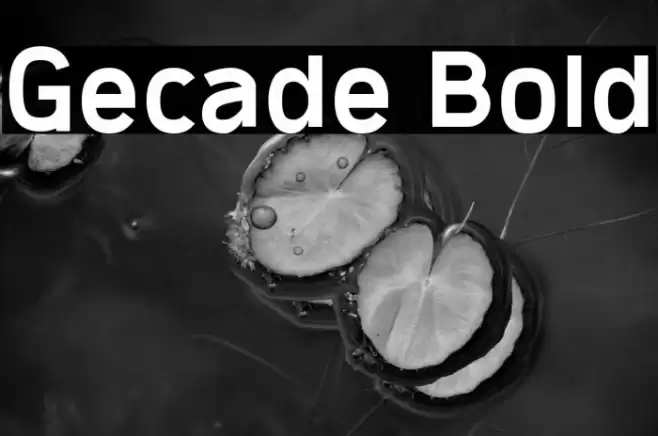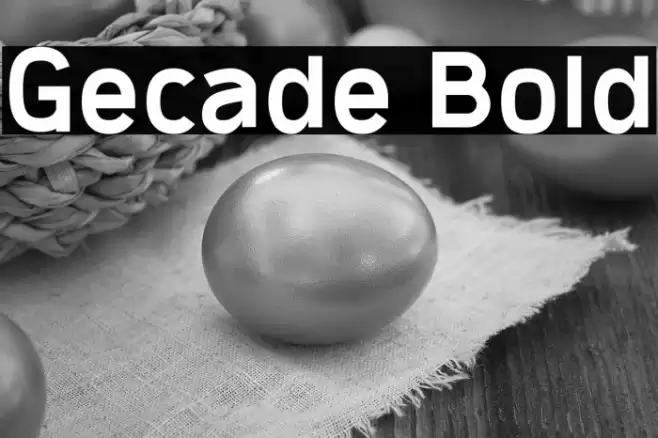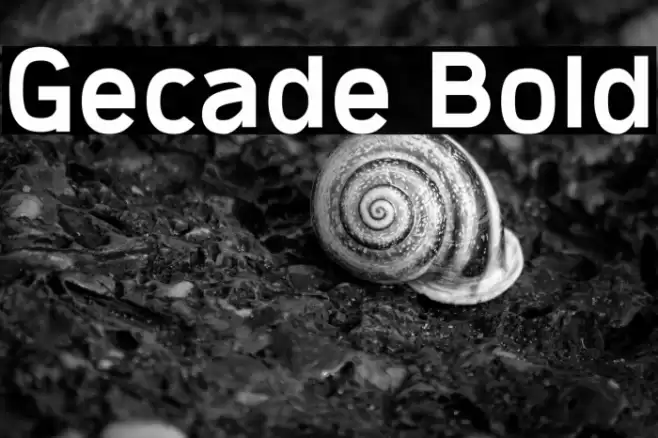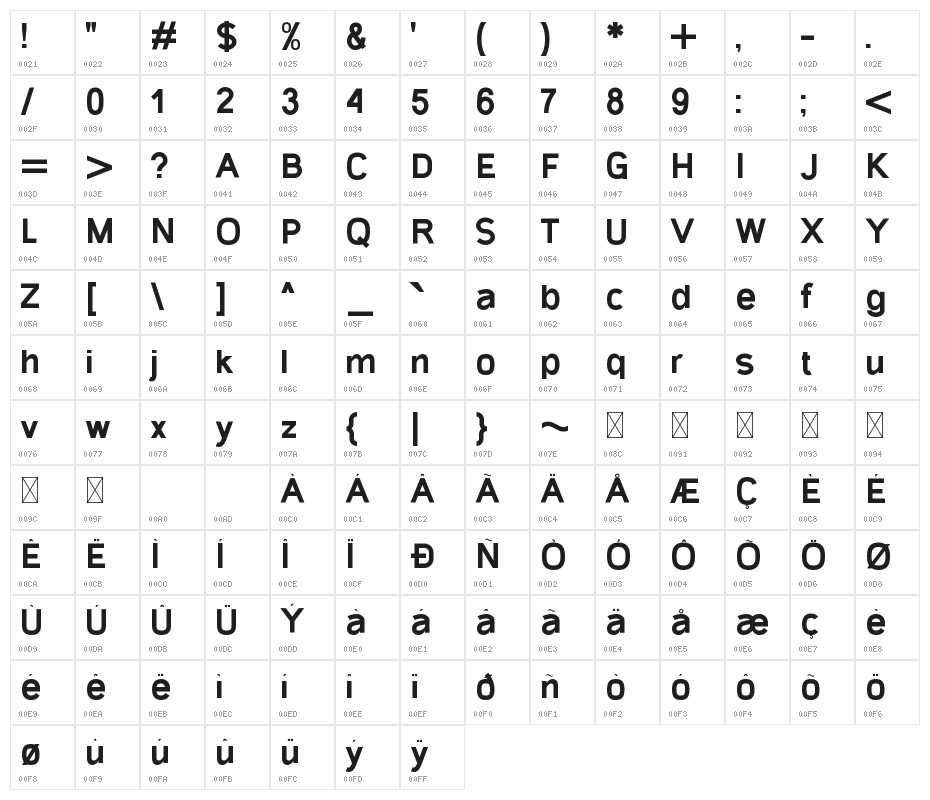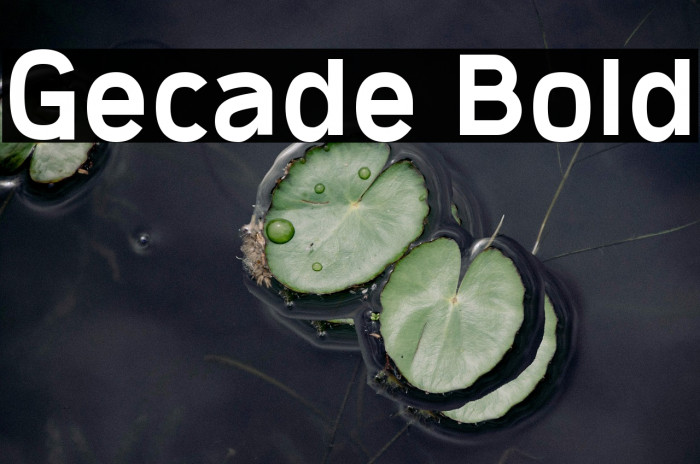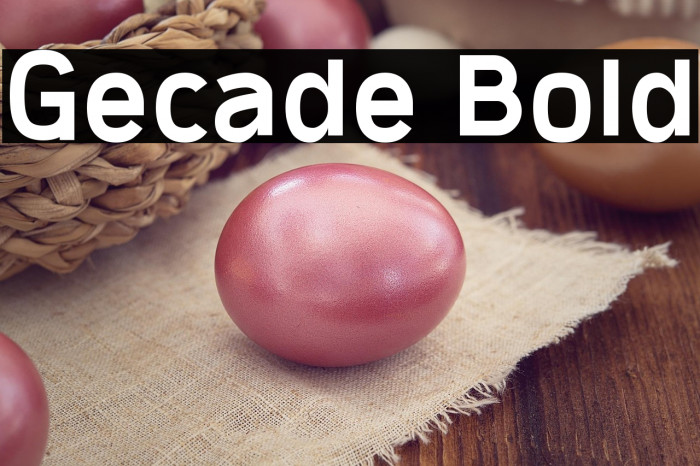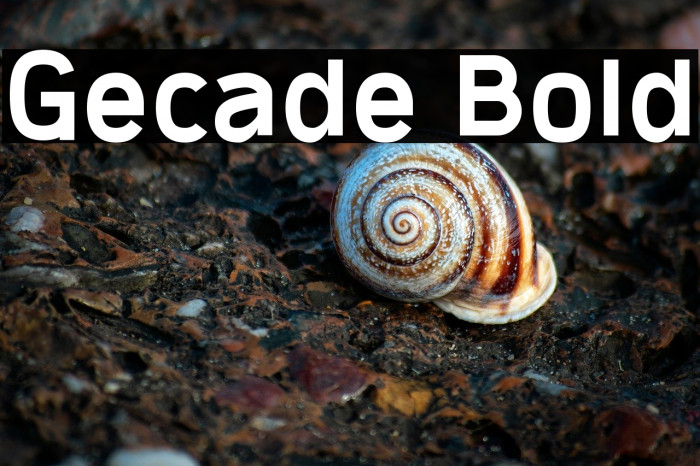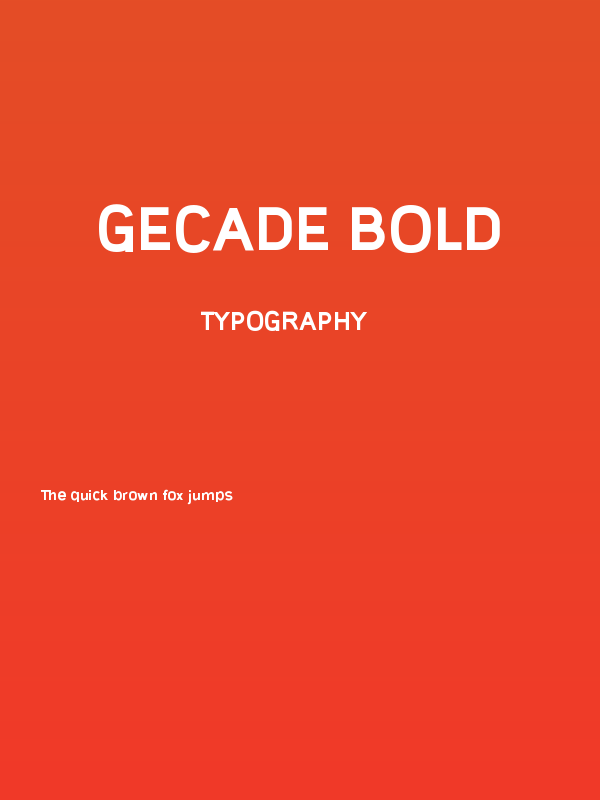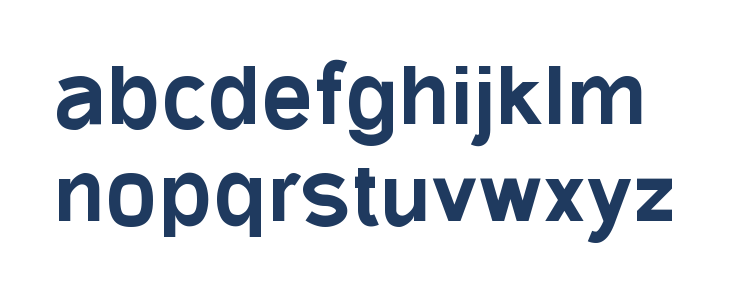
Gecade Bold Font
Gecade Bold Description
This font features a bold and modern sans-serif style, characterized by clean lines and a robust appearance. The uppercase and lowercase letters are well-proportioned, offering a strong presence that is ideal for impactful headlines and titles. The numerals are clear and legible, maintaining the bold aesthetic throughout. Special characters are designed with the same attention to detail, ensuring consistency across all glyphs. The overall design is versatile, making it suitable for a variety of digital and print applications where clarity and emphasis are required.
A bold, modern sans-serif font with clean lines and strong presence from Uncategorized fonts.
- Proposed Projects: Ideal for branding, advertising, headlines, posters, and digital media.